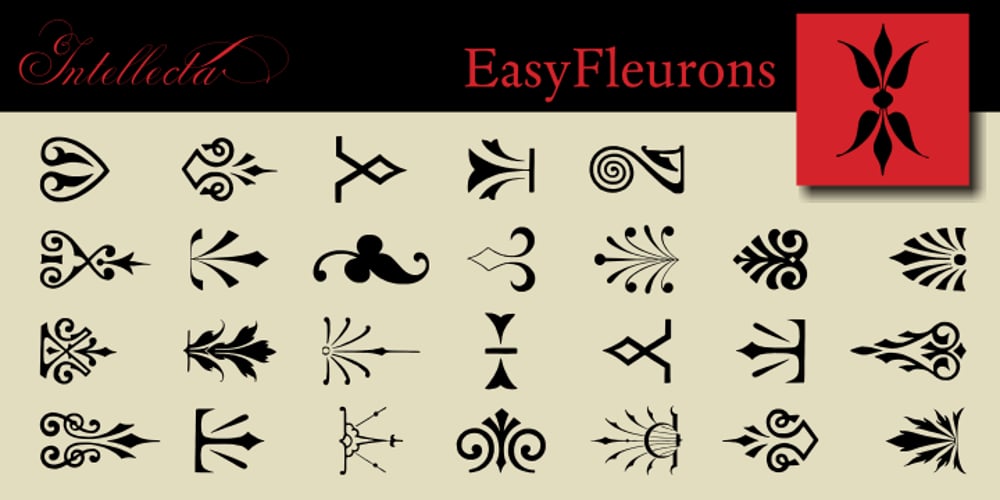
Easy Fleurons Two Font Family was designed by Paulo W and published by Intellecta Design. Easy Fleurons Two contains 1 styles and family package options. Easy Fleurons Two are highly decorative yet generic enough to add very interesting detail to just about any design.